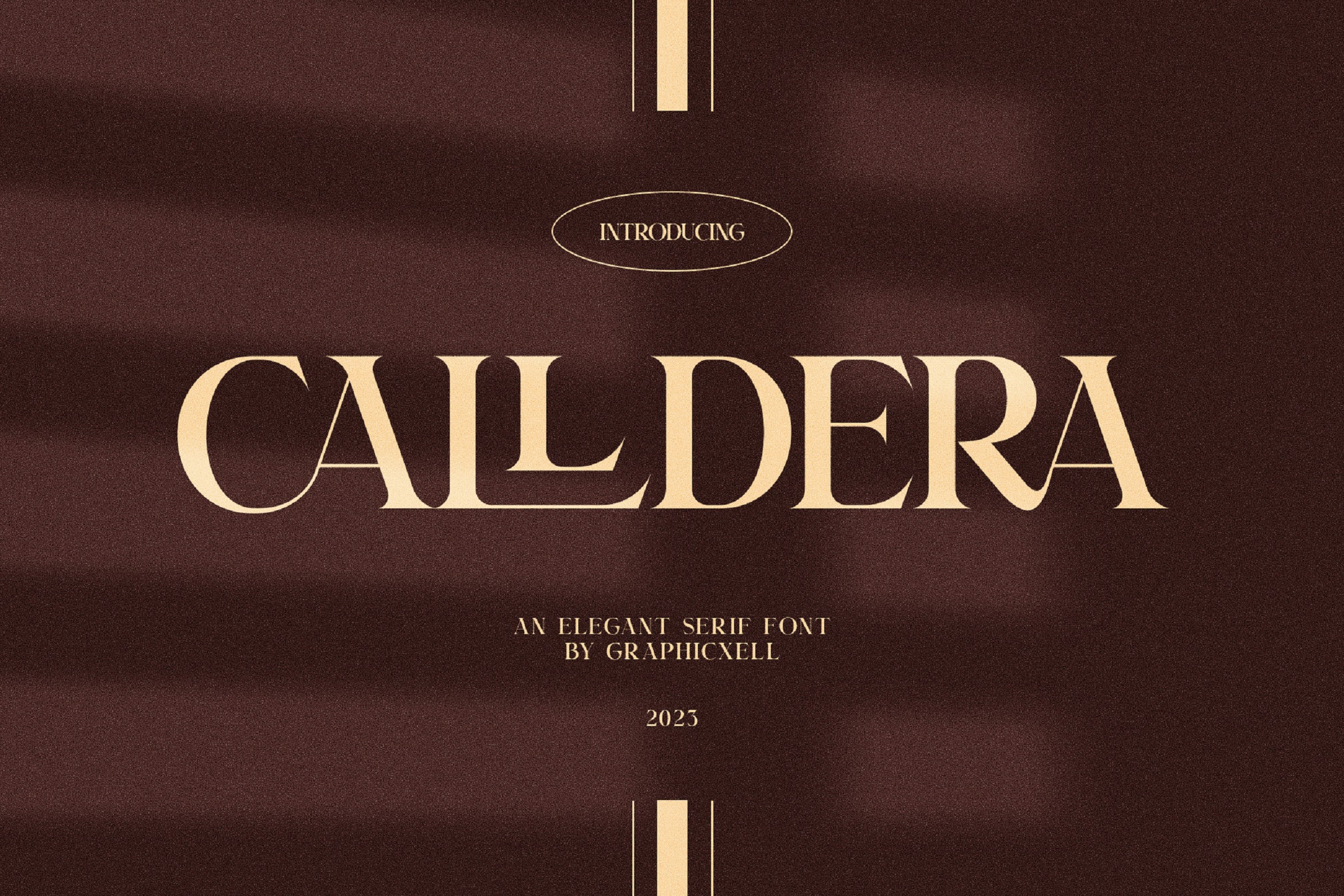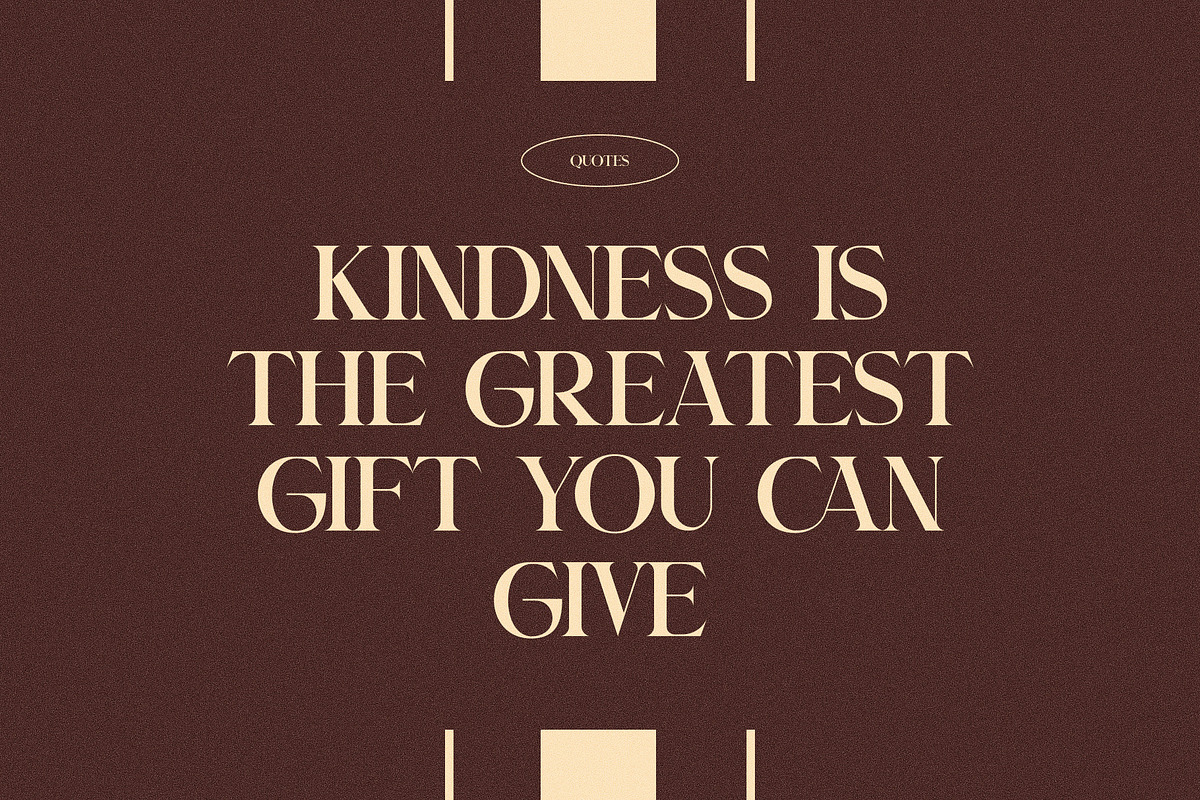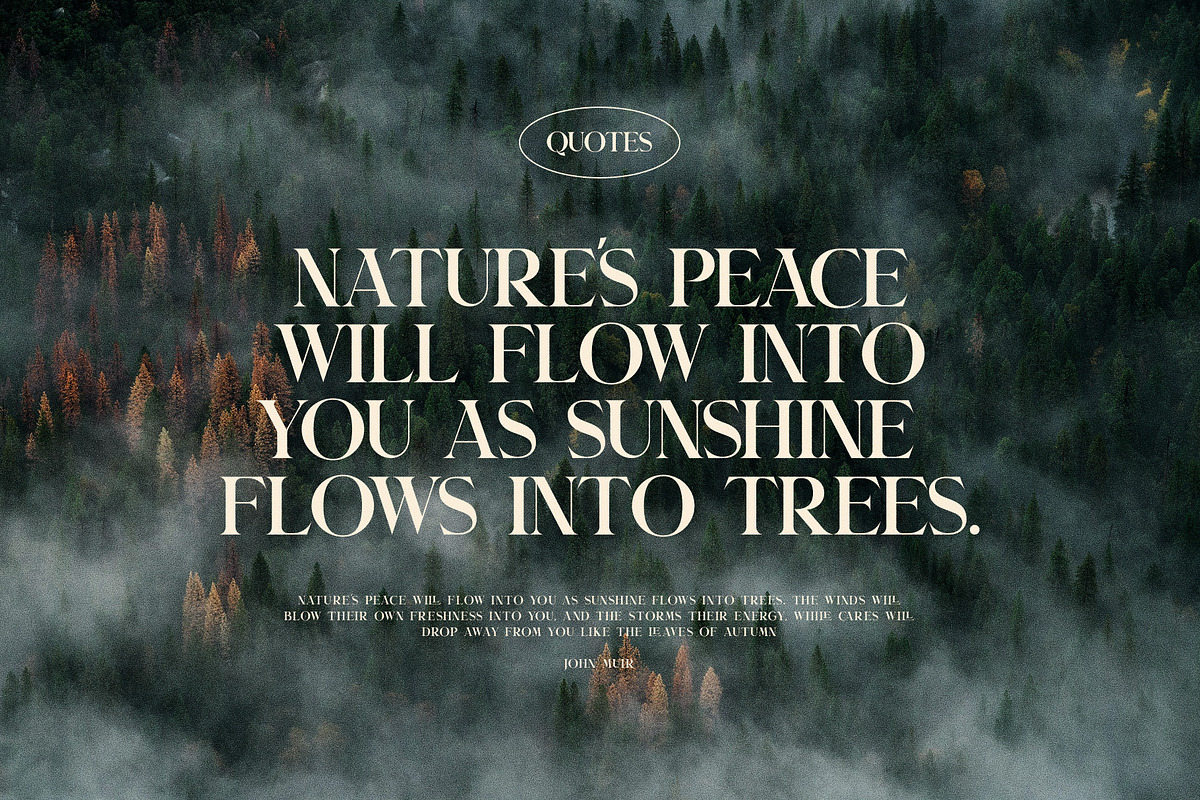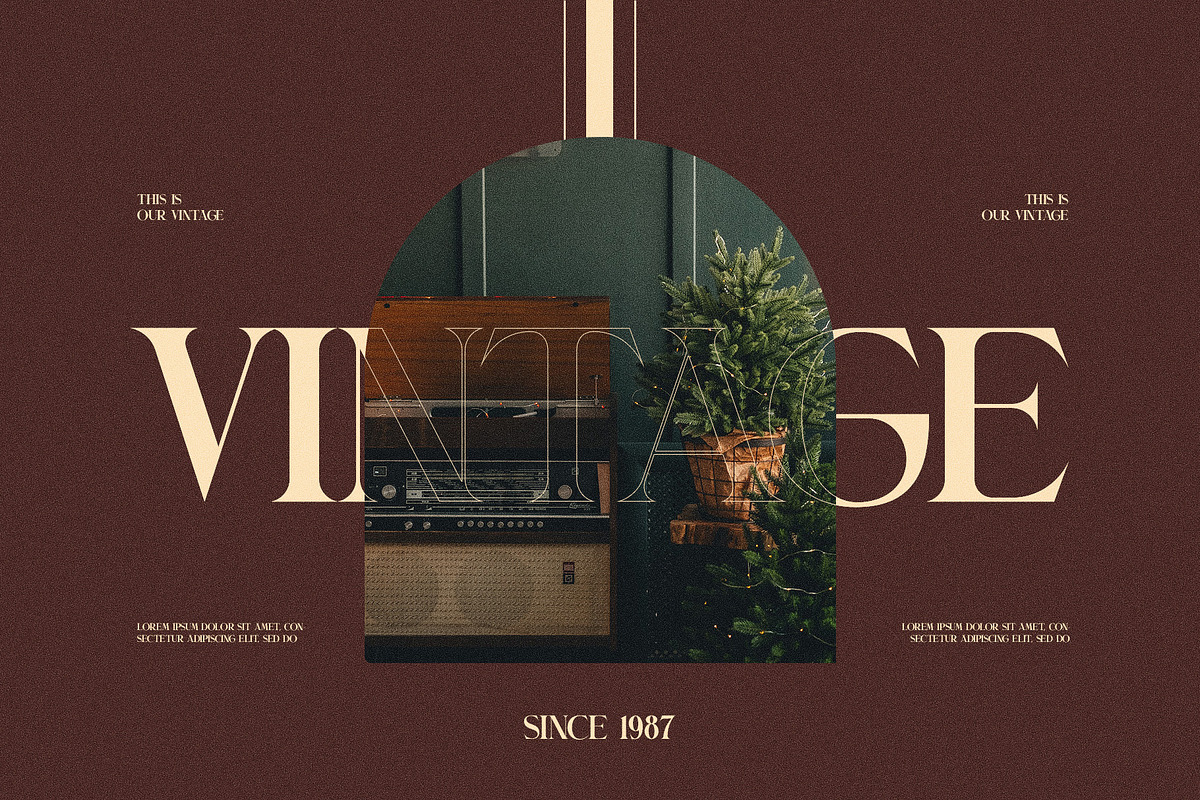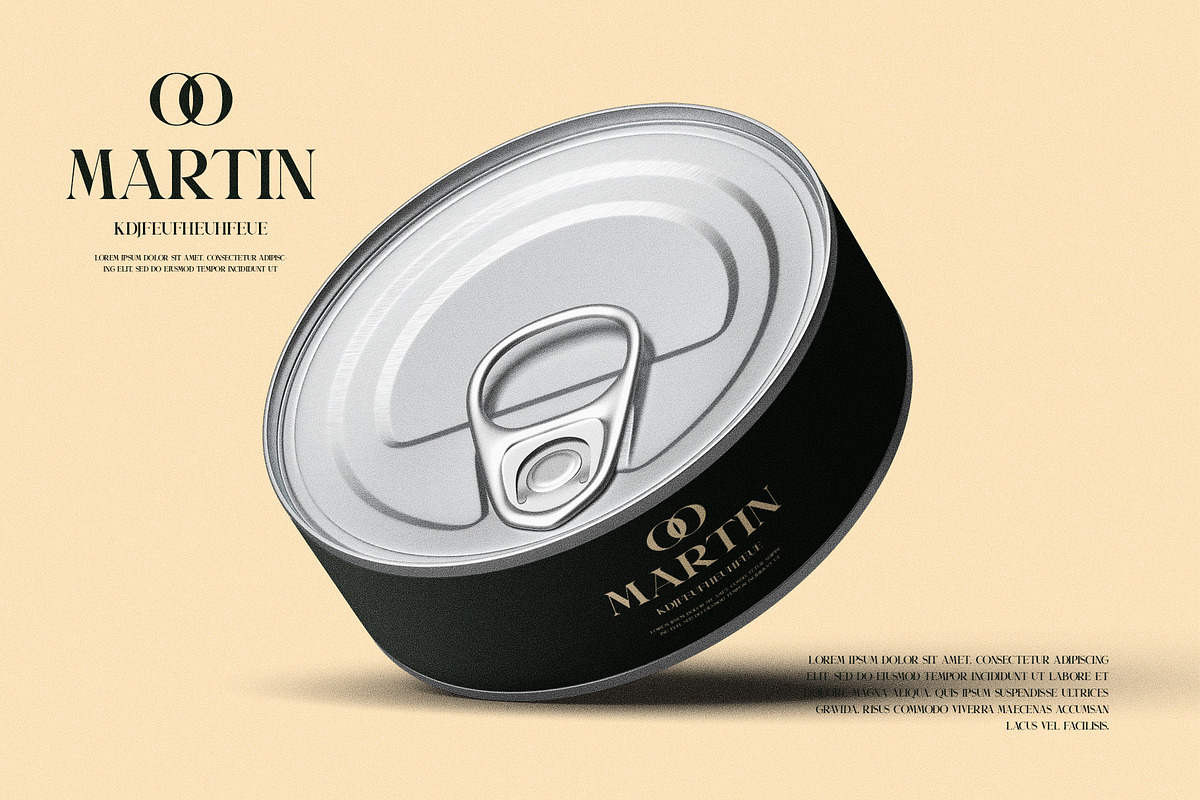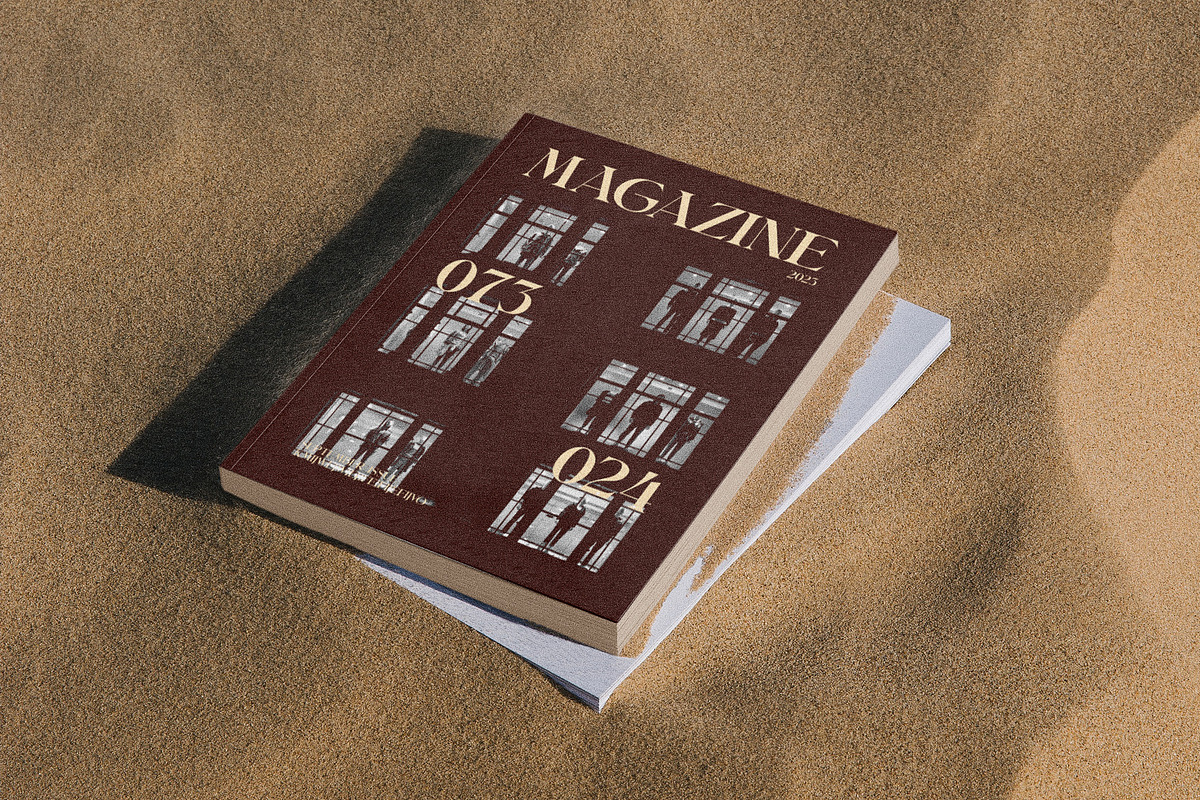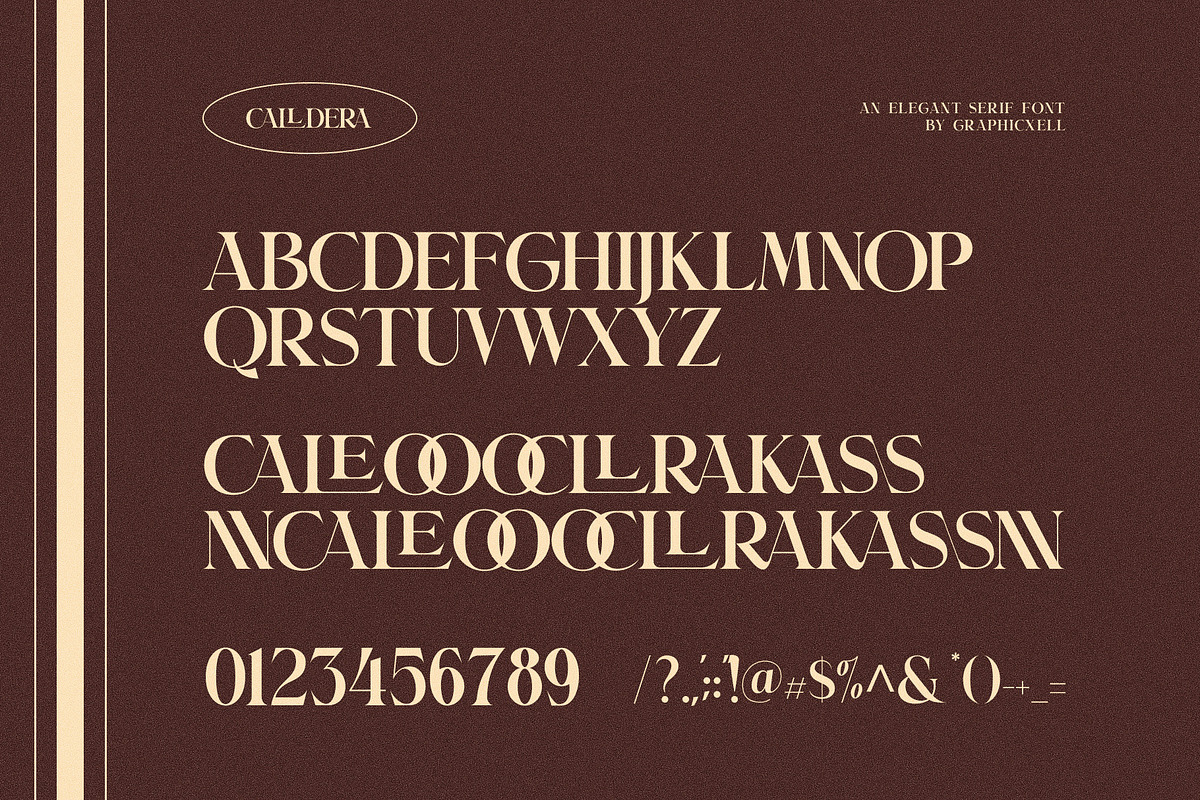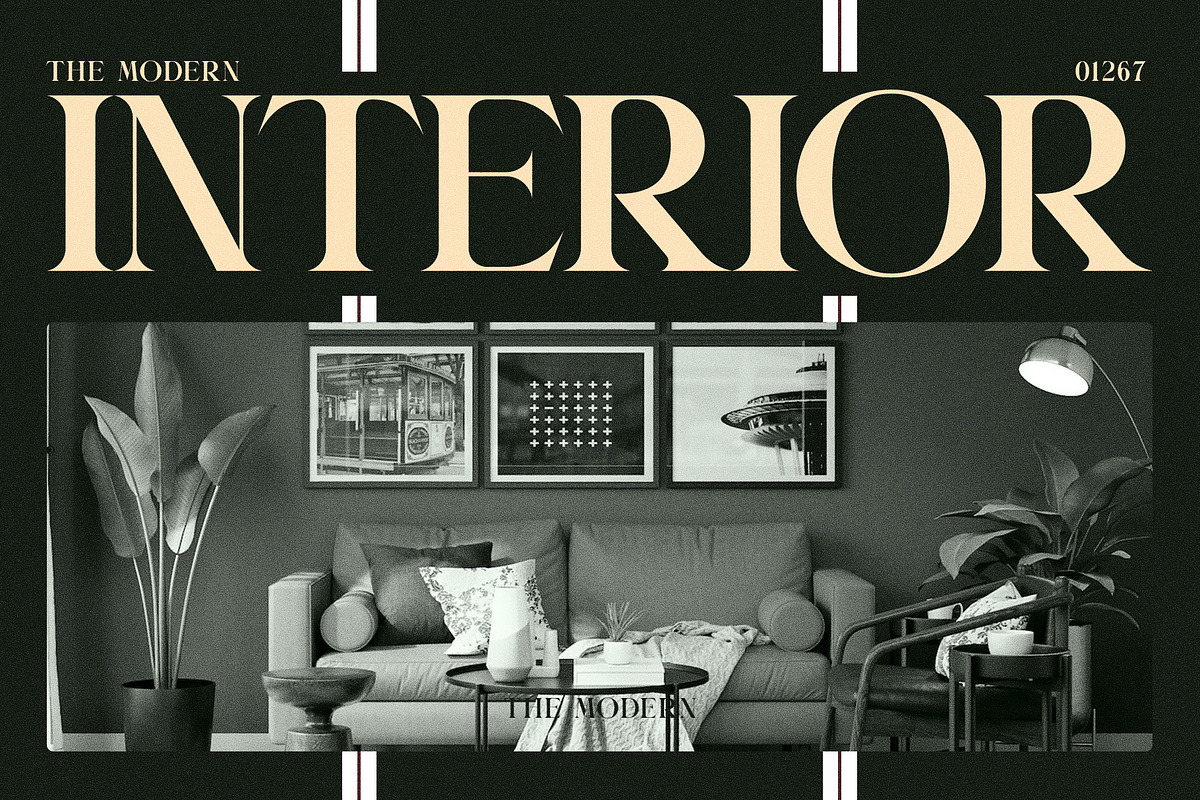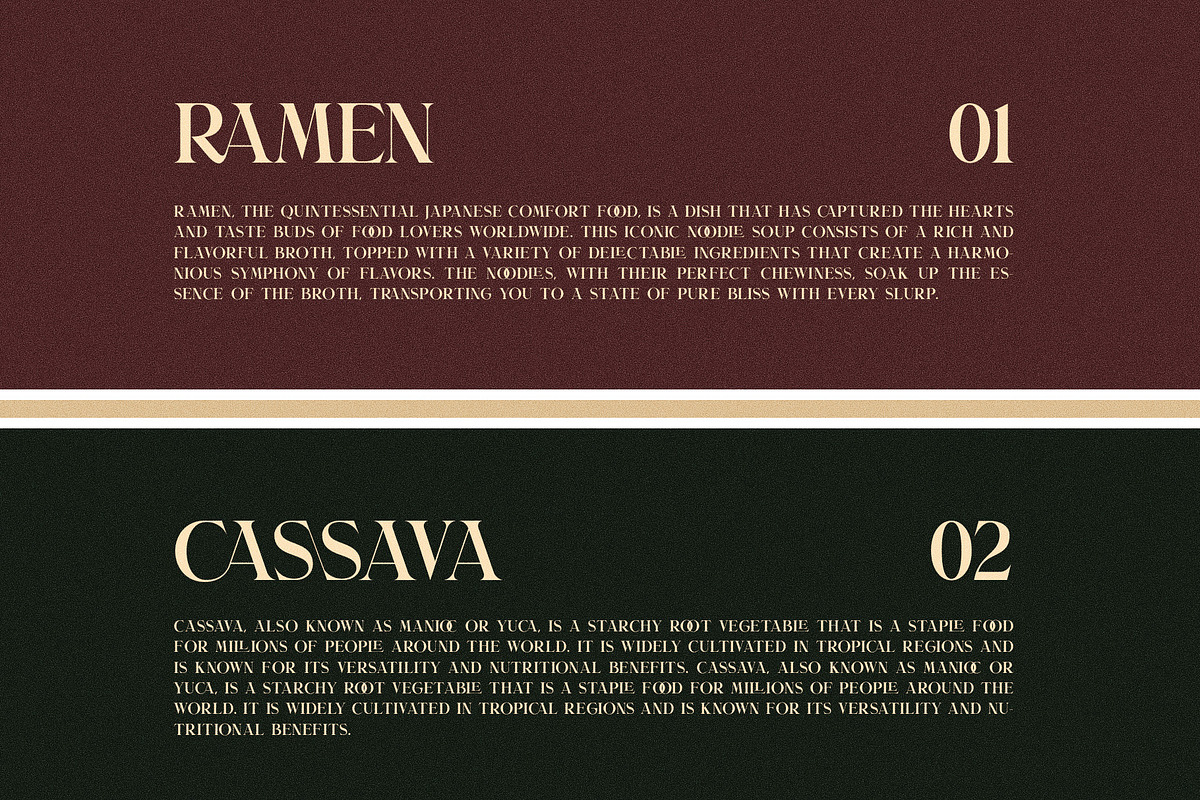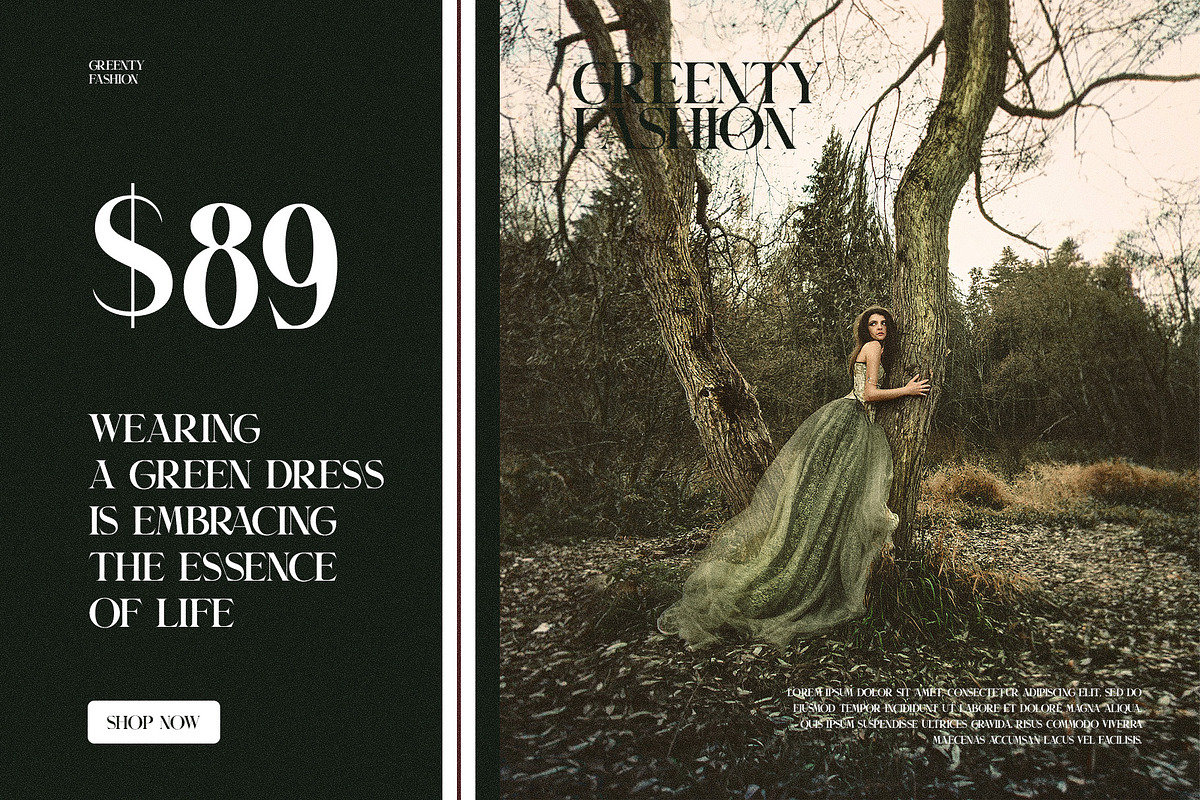
Calldera Elegant Serif Font
Calldera Elegant Serif Font is a new serif font that comes to meet your design purposes. It has a high level of legibility thanks to the simple serifs. Because of that, each letter has a clear difference in the thickness so that it is easy to catch people’s attention. Moreover, this serif font gives a prospective impression and a professional look. Even though it is a serif font, the Calldera Elegant Serif doesn’t look complicated, making it easy to understand. With a few details, this font still maintains its simplicity. In addition, the boldness of the design makes it suitable for graphic designs with a classic, modern, to trendy style. As it lends a sense of sophistication, this font works well for different purposes such as branding, print media, and digital designs. Anyone who wants to make designs feel nostalgic with a unique font, there’s no better choice than the Calldera Elegant Serif Font.